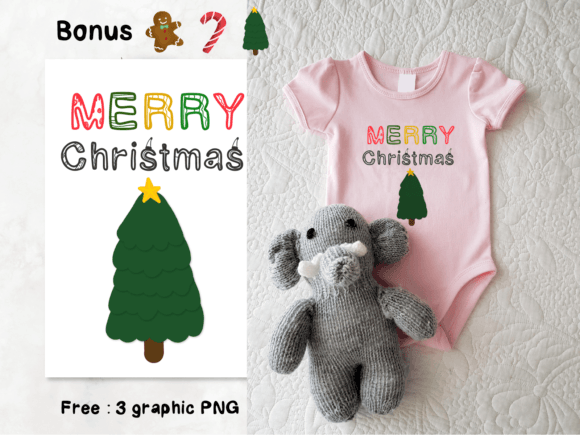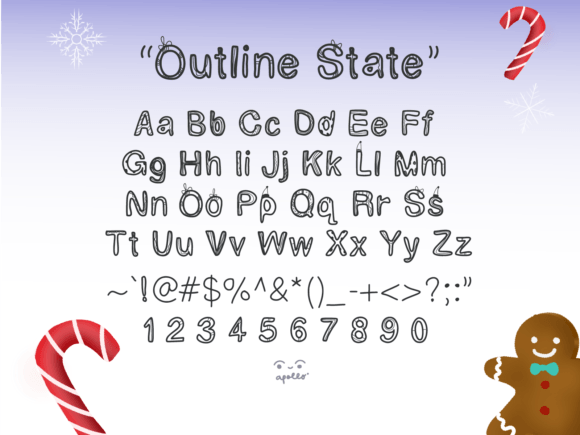
Introduction to Outline State Font
Outline State is a fun project with a unique script and handwritten font.
Whimsical and a bit quirky, this font is perfect for all your Funny and party-themed display projects such as blog posts, logos, branding, ads, invitations, greeting cards, planners, photo albums, decorations, and much more .
Key Features of Outline State Font